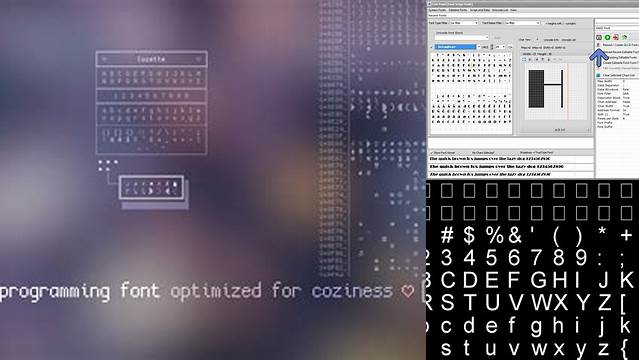
Hey everyone! Today, we're diving deep into the awesome world of bitmap fonts programming. It might sound a little old-school, but trust me, there's still a ton of cool stuff to explore. This article will be your ultimate guide, breaking down everything from the basics to some more advanced techniques, so you can create beautiful and efficient text rendering in your projects. So, if you're ready to get your hands dirty, let's jump in!
1. What Exactly Are Bitmap Fonts?
Okay, first things first: bitmap fonts programming is fundamentally about representing characters as a grid of pixels. Think of it like a mosaic where each little square can be either on (filled) or off (empty). Each character in a bitmap font is essentially a small image or glyph, meticulously crafted pixel by pixel. Unlike their vector-based cousins, which store character outlines mathematically, bitmap fonts store a direct pixel representation. This means you're dealing with individual dots of color to define the shape of your text. When you're rendering text using bitmap fonts, the program looks up the character's corresponding pixel data in a pre-defined image (often called a font map or texture atlas) and then copies those pixels onto the screen at the desired location. This approach is super straightforward and generally very fast, making it a great choice for performance-critical applications like game development or embedded systems where resources are often limited. The main advantage lies in their simplicity and speed. Since the shapes are already pre-rendered, the graphics card doesn't have to do any complex calculations to draw the letters. This can lead to significantly faster rendering times, especially on older hardware or devices with limited processing power. However, there are some drawbacks. Because bitmap fonts are pixel-based, they don't scale well. When you try to make the text larger, it can become pixelated and blurry. This is because you're essentially stretching a fixed-size image, and the pixels become more apparent. Another limitation is the lack of flexibility. Changing the font style or size requires you to create a new set of bitmap images, which can be cumbersome. Vector fonts, on the other hand, can be scaled and transformed without losing quality, making them a more versatile option for many applications. Despite these limitations, bitmap fonts programming remains a viable and often preferred choice in specific situations. In particular, retro-style games, pixel art applications, and systems where performance is paramount can greatly benefit from the simplicity and speed of bitmap fonts. Understanding their strengths and weaknesses is crucial to deciding whether they're the right tool for your project.
2. The Anatomy of a Bitmap Font File
Alright, let's get into the guts of a bitmap font file. When you're doing bitmap fonts programming, you're not just dealing with a single image. Instead, you usually have a font file that has two primary components: the image itself (often a PNG or other raster image format) that contains all the glyphs (the visual representations of characters) and a separate data file (often a text file or a custom binary format) that provides information about each glyph. The image file is the visual powerhouse, holding all the pixel data for each character. It's typically organized as a grid or a texture atlas, where each character occupies a specific rectangular area. The data file is the brains of the operation. It provides essential information about each character, such as its character code (e.g., ASCII value), its position within the image, its dimensions (width and height), and sometimes additional data like kerning information (adjusting the spacing between certain character pairs for better readability) and the offset from the baseline. This data file acts as a map, telling the program where to find each character in the image and how to display it correctly. Let's explore some common components you'll encounter when working with bitmap fonts programming. The first is the character code, which is a numerical representation of each character, like 'A' has a value of 65. This helps the program know which character to display. Next is the character rectangle which defines the position and size of the character glyph within the texture atlas. This includes the character's width and height, which determines how much space the character takes up when rendered. This is where your program figures out the dimensions of each character. Additionally, the x and y offsets define the character’s location relative to the base line, which is an imaginary line where all characters usually rest. You may also find kerning information which specifies the spacing adjustments between specific character pairs. This ensures that characters are positioned correctly to appear visually pleasing. The font metrics usually include information about the font’s overall characteristics, like the font height and baseline. Understanding these components is key to using and generating bitmap fonts programming in your projects, so get familiar with them.
3. Choosing the Right Tools for Bitmap Fonts
Okay, so you're ready to dive into bitmap fonts programming, but you need some tools, right? Fortunately, there's a wide array of options available, ranging from simple image editors to more specialized font creation software and game engines. First up, let's look at some essential tools. For image editing, you'll need a solid image editor to create and manipulate your font images. Options include GIMP (free and open-source), Photoshop (industry standard, but requires a subscription), or even simpler tools like Paint.NET. These tools allow you to draw, edit, and organize the glyphs for your font. For font creation, if you want to create your own bitmap fonts from scratch or customize existing ones, you'll need specialized software. Some great options include Hiero (a free tool specifically for creating bitmap fonts), BMFont (another popular option for creating bitmap fonts), and FontForge (a powerful, open-source font editor that can handle bitmap fonts). These tools will help you create the font file, define character properties, and generate the associated data file. Next, the game engines play a big role when it comes to bitmap fonts programming. Most game engines have built-in support for bitmap fonts and tools to import and use them in your games. For example, in Unity, you can import font images and create font assets with ease. In Godot, you can create bitmap fonts directly within the engine. In other engines, you might need to manually load the font files and render the text using your own custom code. Finally, programming languages play a vital role. You will need a good code editor or IDE. Depending on the programming language and game engine you choose, you'll need an appropriate code editor or IDE. Popular choices include Visual Studio Code, Sublime Text, Atom, or dedicated IDEs for specific languages like Eclipse for Java or Xcode for Swift. Additionally, be sure to get to know the tools and libraries related to your specific programming language and game engine. These tools will include: image libraries (e.g., SDL_image, stb_image), text rendering libraries, and font loading libraries. Choosing the right tools will save you time and frustration down the road. Consider your project's needs, your skill level, and your budget when making your selections.
4. Creating Your First Bitmap Font: A Step-by-Step Guide
Alright, let's roll up our sleeves and create a basic bitmap font! Follow these steps to build your own.
- Choose Your Font: The first step is picking a font. The font you choose will determine the overall look and feel of your text. Choose a clean, readable font that suits your project. Some popular choices include Arial, Courier New, or Open Sans. Make sure the font is licensed appropriately for your use. Many free fonts are available online, but be sure to check the license before using them. Next is font size. Select the font size. For bitmap fonts, the size you choose will directly impact the final pixel resolution. Small sizes (e.g., 8pt, 12pt) will result in smaller character images and will be more memory efficient, while larger sizes (e.g., 24pt, 32pt) will result in larger images and more detailed characters. However, the larger sizes might increase memory use and slow down rendering. Select a size that strikes the right balance between visual appeal and performance. Consider the overall size and scale of your game or application and the amount of text that needs to be displayed. Then you should determine the character set. You can create a font containing just a few characters (e.g., the numbers 0-9) or a full set of characters (e.g., all lowercase letters, uppercase letters, numbers, punctuation, and symbols). This choice affects the size of your font image and the amount of memory it will require. Start with a smaller character set and expand it later as needed. Commonly, include the ASCII set (numbers 0-127). When creating your font, consider the special characters you need. Do you need special characters like copyright symbols or trademark symbols? Planning which characters you need to create can greatly affect the image you will use for your font.
- Create a Font Image: Once you've chosen your font, you can now move onto the image part. You will use an image editor to design the characters. Create a new image in your image editor. The dimensions of this image will depend on the character set and font size you chose in step one. The image will store the glyphs of the character set. Arrange the characters. Organize each character in a grid or texture atlas. You can arrange the characters in a single row, a single column, or in a grid. When creating your font image, place each character so they will fit within their bounding boxes. Leave some space between each character to avoid overlapping when rendering. Set the image’s color. Choose a color for the font, and make sure that the characters stand out from the background. Using a fully transparent background is best so that there’s no need for any additional work when integrating it into your game or application. When creating the image, make sure the resolution is proper so that you can see the characters well.
- Generate the Data File: In this step, you need to generate the data file. Use a bitmap fonts creation tool, such as Hiero or BMFont, to generate the data file. Load the image file into the tool, which will allow you to define character metrics, such as character codes, character widths, and character heights. You'll need to provide the character spacing information and save the output to the desired file format. Most tools allow you to export the data in a variety of formats, such as XML, TXT, or custom binary formats. Make sure you pick a format that's supported by your chosen game engine or graphics library. Carefully configure the settings within the tool to ensure the proper export of the data file. Pay special attention to character spacing, character encoding, and other aspects to ensure compatibility. Next is testing, and testing. Ensure that your font renders correctly and that your text appears properly. Ensure that each character aligns properly. Ensure that you can render the characters in a variety of settings. You should now have a working bitmap font for your project!
5. Optimizing Your Bitmap Fonts for Performance
Okay, let's talk about making your bitmap fonts programming as efficient as possible. Performance is key, especially in games and other real-time applications. Here are some tips and tricks to help you optimize your fonts. First, start with the texture atlas size. The goal is to make your atlas as small as possible while still accommodating all the characters you need. This will reduce memory usage and improve the rendering speed. Consider packing your characters efficiently. Use tools to optimize the layout of the glyphs in your texture atlas. Make sure to eliminate any unnecessary gaps between characters. Use a power of two texture size. Most graphics cards prefer textures that are powers of two in size (e.g., 256x256, 512x512, 1024x1024). Doing this will help reduce memory allocation overhead and improve performance. Then is font subsetting. Instead of loading an entire font, load only the characters that you actually need. This is especially helpful if you are using a large font with hundreds of characters. By limiting the character set, you will dramatically reduce the memory footprint. Next is caching. Cache the rendered text to avoid having to re-render the text every frame. This is especially beneficial for static or infrequently updated text. In your code, create a system to store the pre-rendered text as images or textures, and reuse them when displaying the same text again. Also, utilize batch rendering techniques. This allows you to group draw calls of multiple text elements into a single draw call, further reducing the overhead. Be sure to use the correct font size. Choose an appropriate font size. Large font sizes will increase memory usage and rendering time. Make sure to use a font size that is adequate for the text. Choosing a smaller size can help with performance, if it still works with the game design. To ensure better performance, try rendering the text on the CPU. When your application is running, experiment with rendering the text on the CPU and using it in the GPU. Keep in mind that the specific optimization techniques you should use will depend on your project's specific needs, and you may need to experiment to find the best approach.
6. Implementing Bitmap Fonts in Your Favorite Game Engine
Alright, let's get down to the nitty-gritty and talk about how to implement bitmap fonts programming in the most popular game engines. Here's a breakdown of how to get started with Unity, Godot, and others.
Unity:
- Import your Font Files: Bring your font image and the data file into your Unity project. Unity can handle both the image (usually a PNG) and the data file (often a .fnt file). In the project window, drag and drop your font files into the appropriate folder.
- Create a Font Asset: Right-click in the project window and select Create > Text > Bitmap Font. This will create a new font asset that you can configure. In the inspector window, you'll need to link the font image and the data file you imported. Set the material. Unity will automatically create a material for the font. If you want to customize the appearance, create a new material and assign the font texture to it.
- Use the Font in Your UI or Game Objects: Create a TextMeshPro Text object or a UI Text object in your scene. In the inspector, change the font to the font asset you created. Then you can type the text and adjust the formatting, and the text will be rendered using your bitmap font.